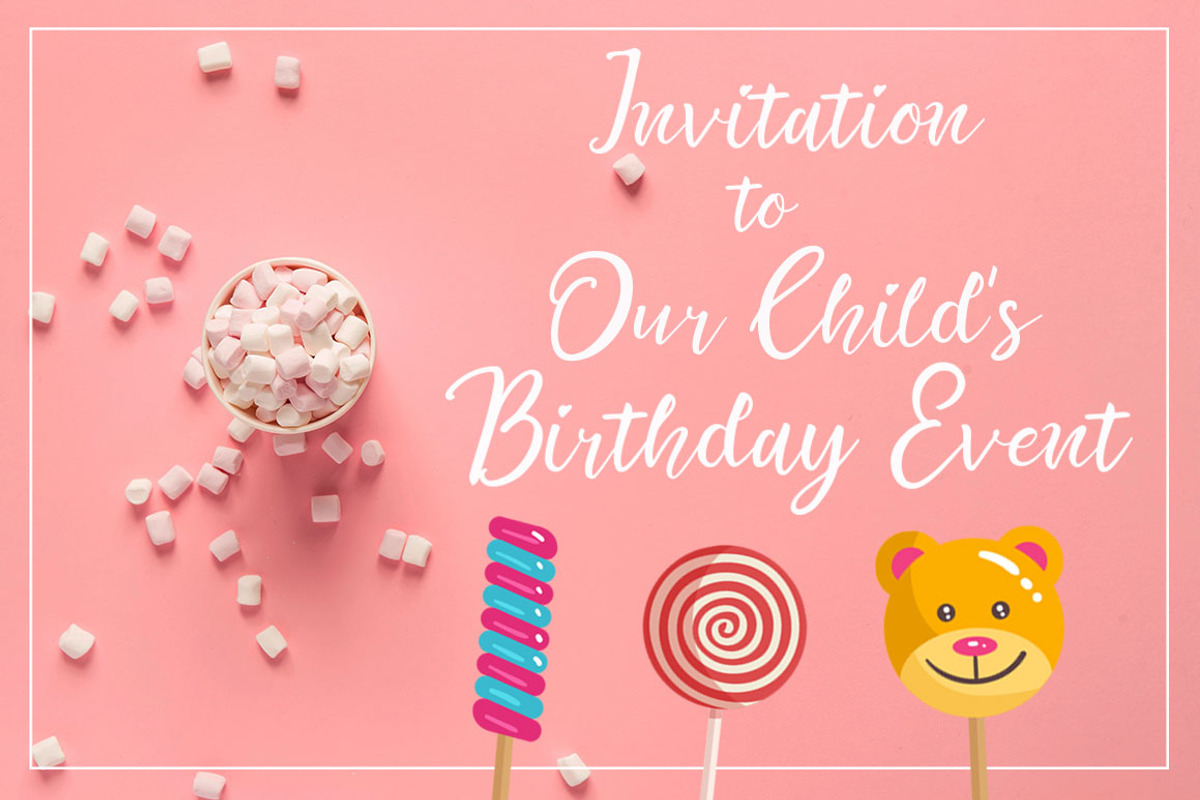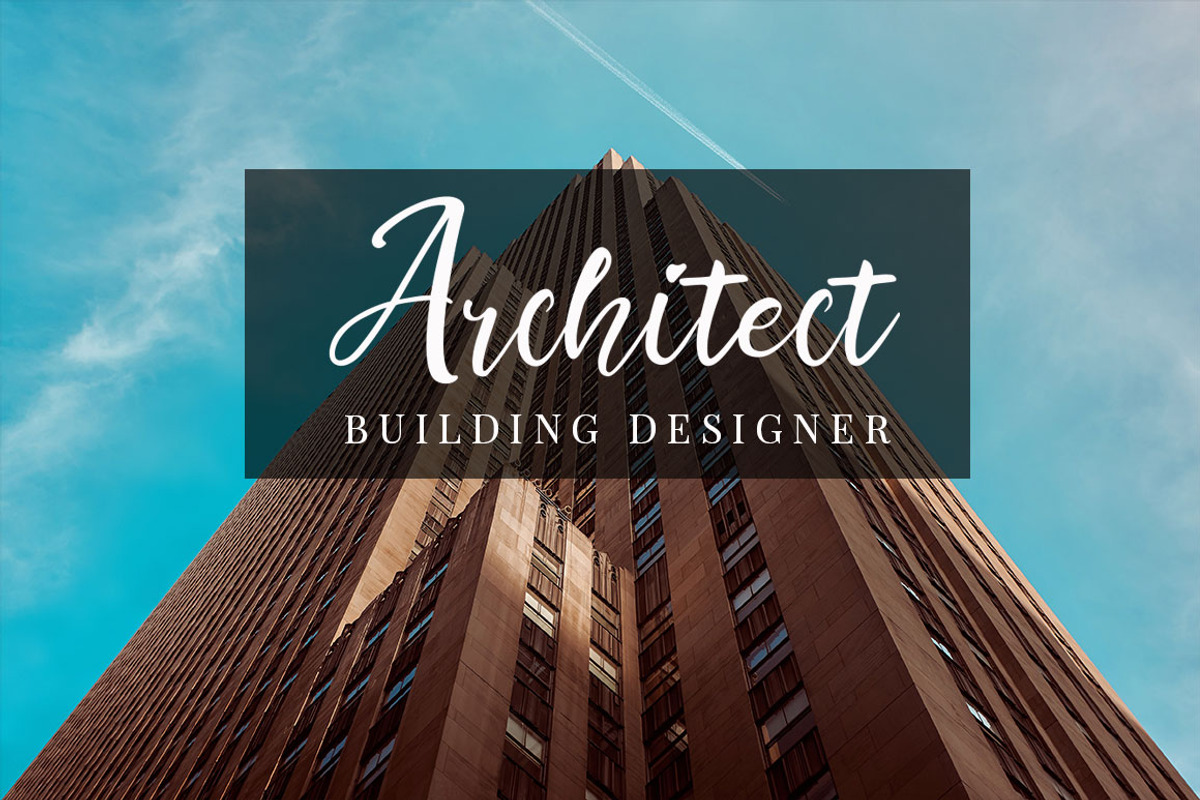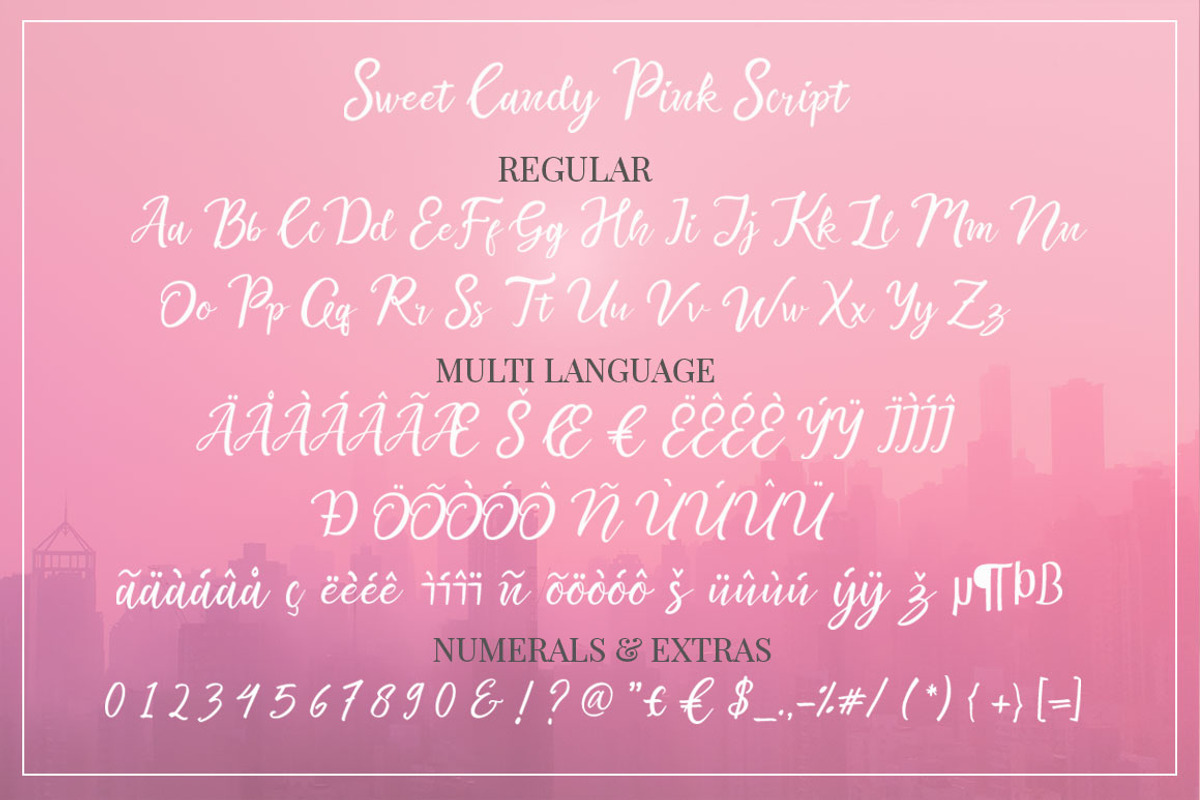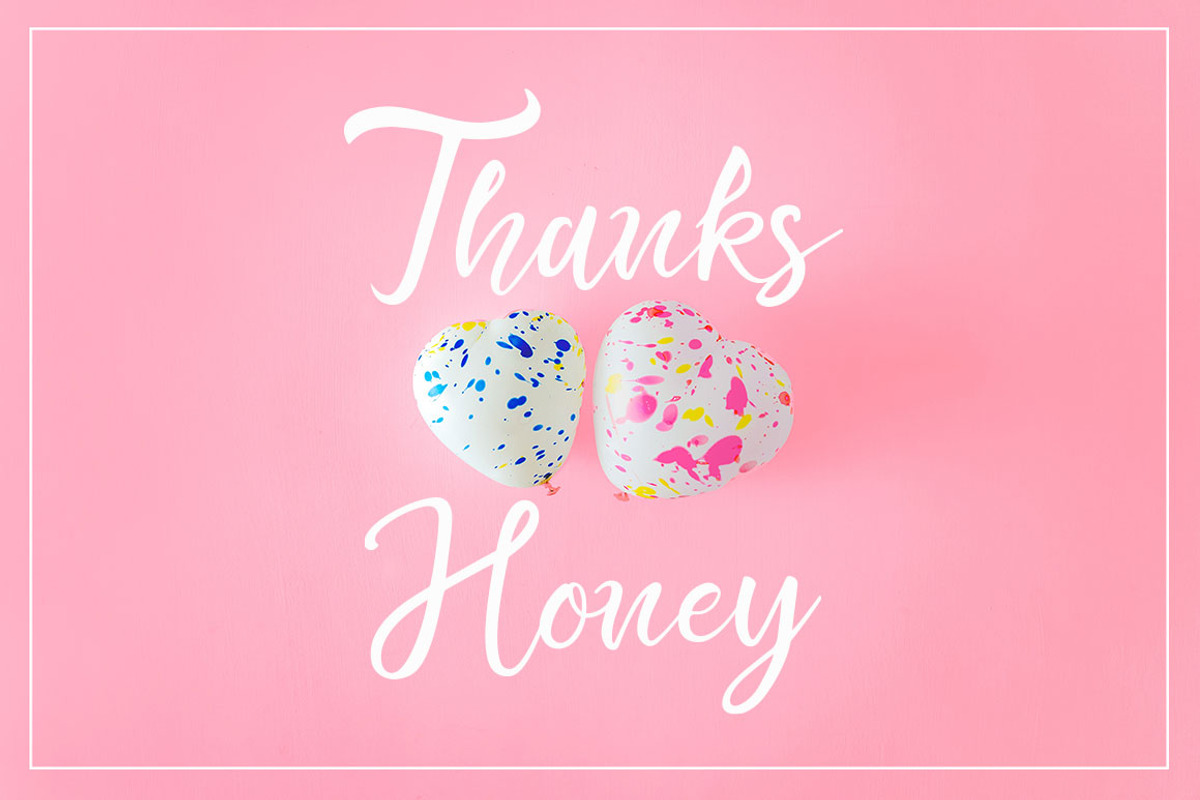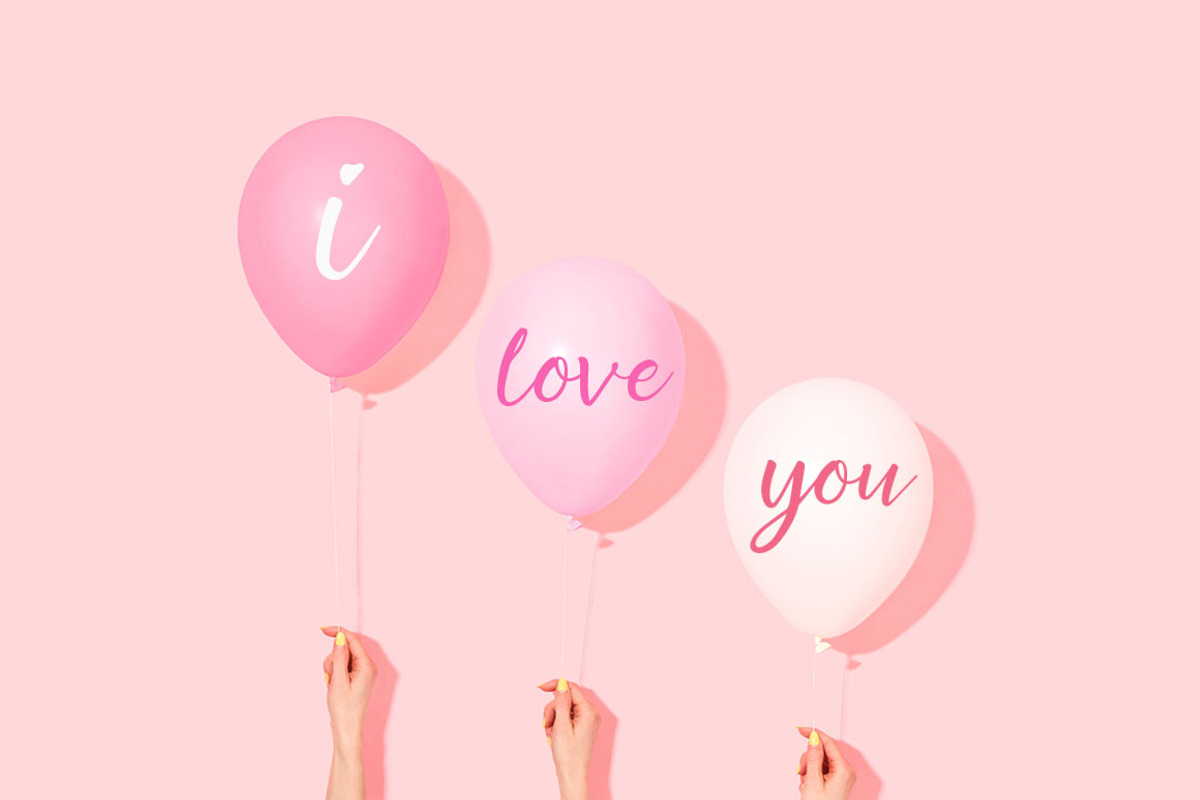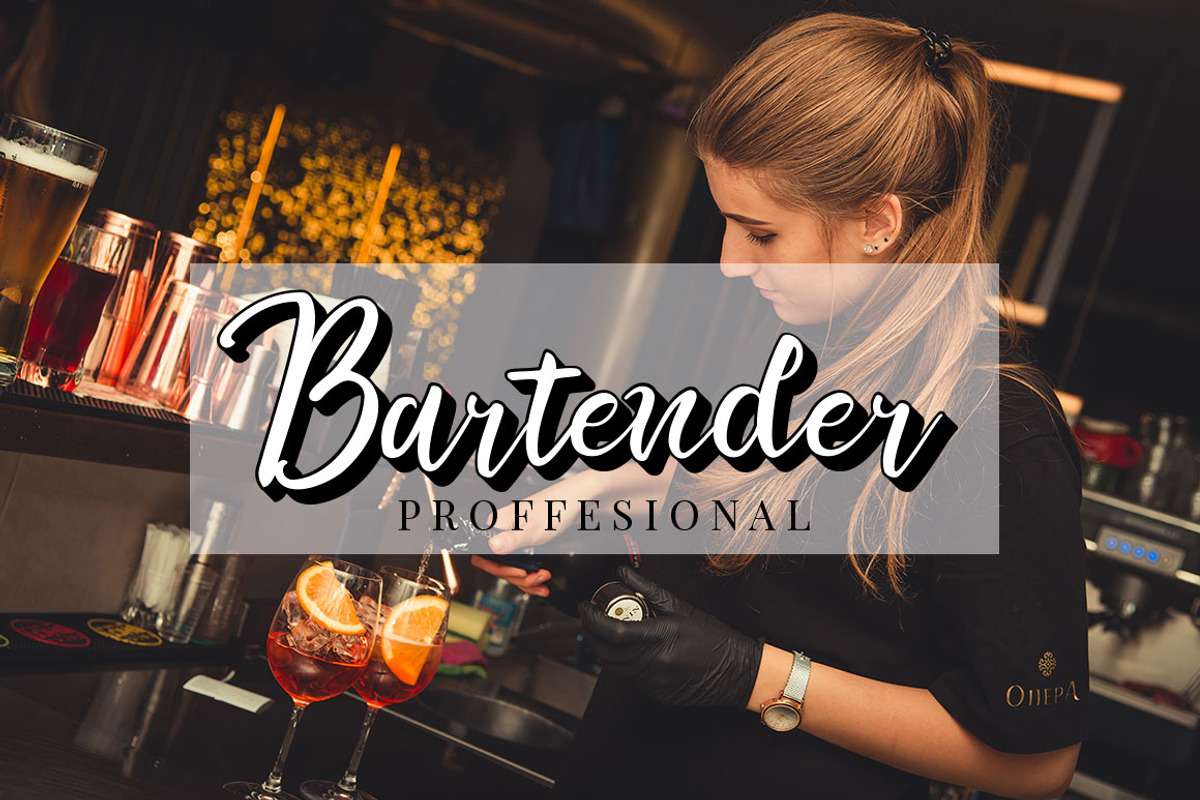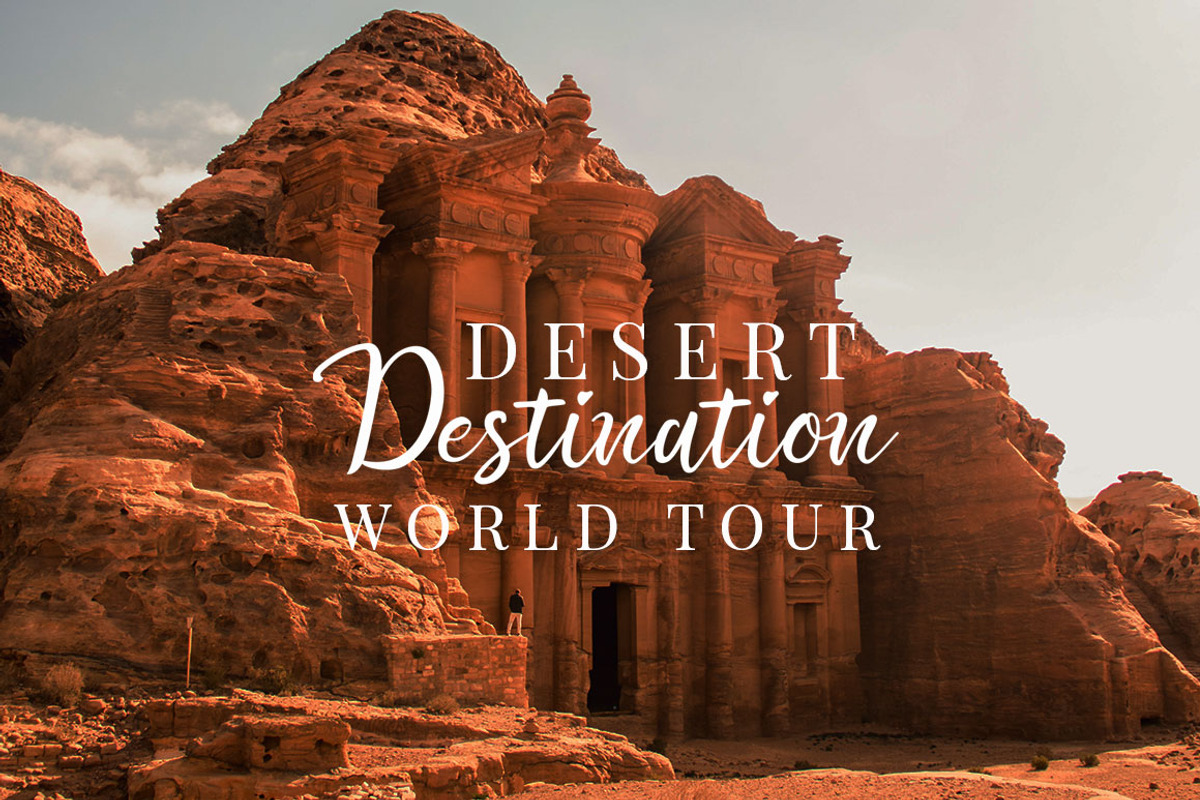
Sweet Candy Pink Script (2 layered)
Sweet Candy Pink Script a beautiful modern calligraphy font with Extrude Shadow Style. Comes with 2 layered font handwritten, sophisticated flows. Sweet Candy Pink Script offers beautiful typographic harmony for a diversity of design projects, signature, stationery, logo, typography quotes, including logos & branding, wedding designs, social media posts, advertisements & product designs.
"Sweet Candy Pink Script" includes full set of lovely uppercase and lowercase letters, multilingual symbols, numerals, punctuation and ligatures.
- Alternative Stylistic
- Stylistic Set
- Multilanguage Support